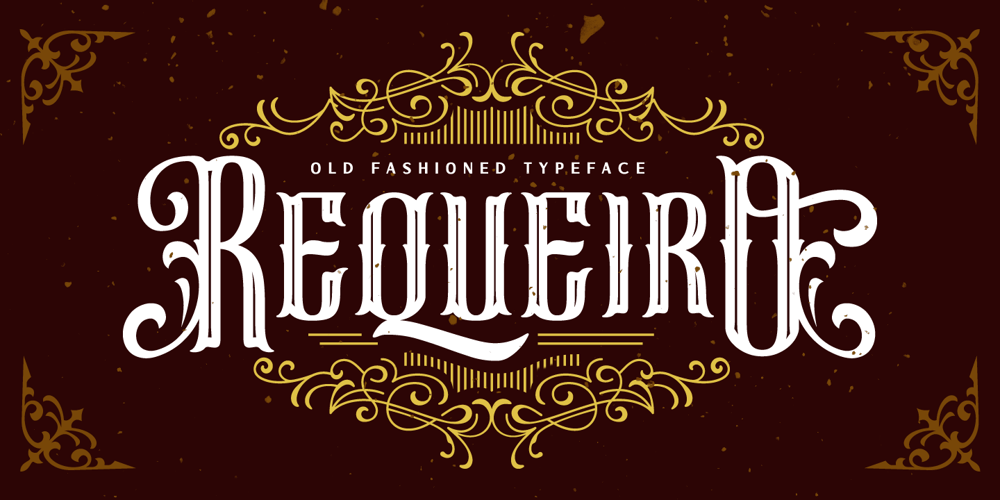
Requeiro Font Family was designed by Ahmad Ramzi Fahruddin and published by Arterfak Project. Requeiro contains 1 styles and family package options. Our new Requeiro Typeface is a blackletter vintage display font. Requeiro is an all-caps font with a classic, elegant and dark feel. Inspired by Victorian style, this font is recommended for headline, suitable for display of labels, posters, stickers, storefronts, signage, logotypes or t-shirts. You can apply OpenType features to get more calligraphic looks. Requiem has stylistic sets in the uppercase that you can access to give centered ornamental looks.